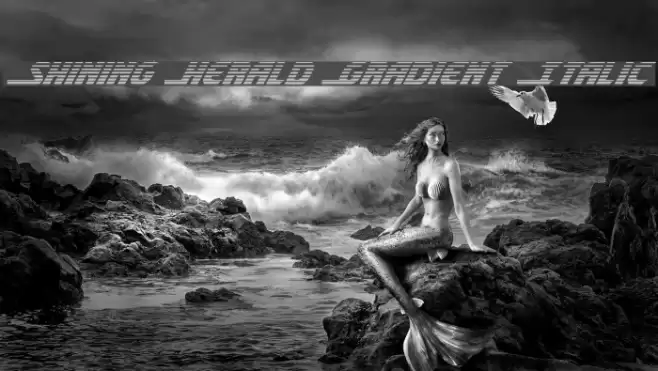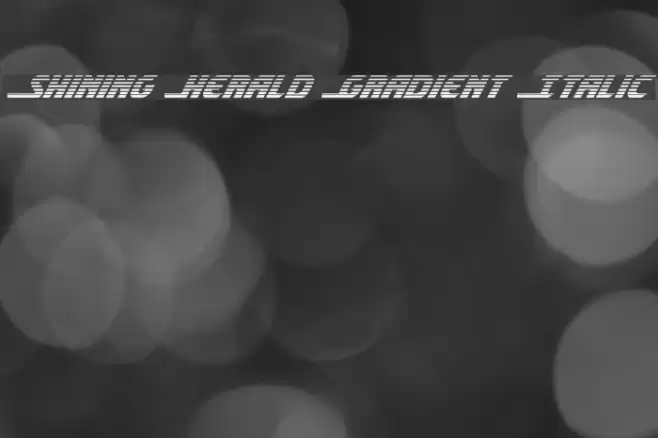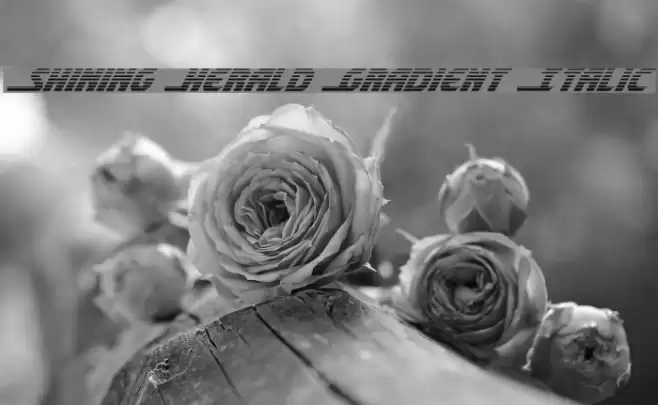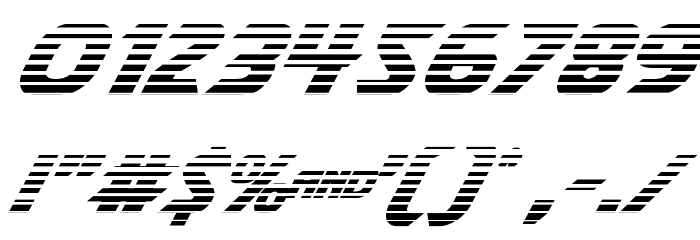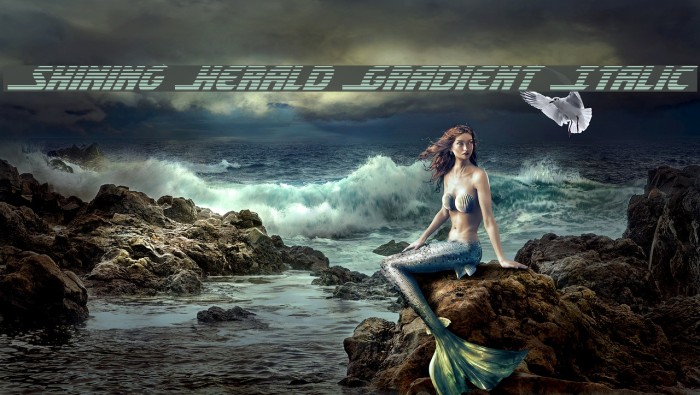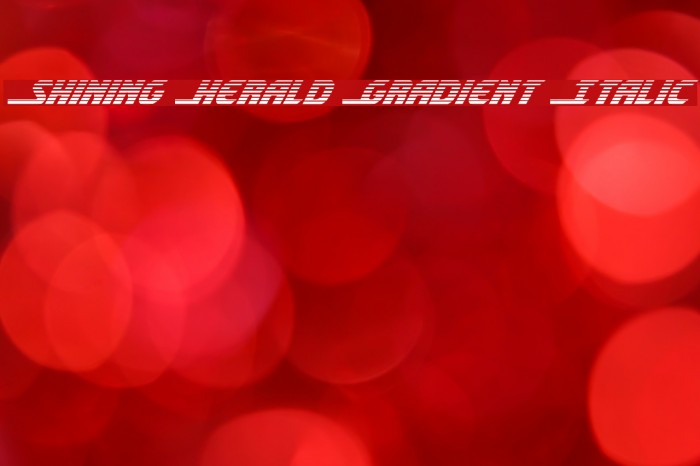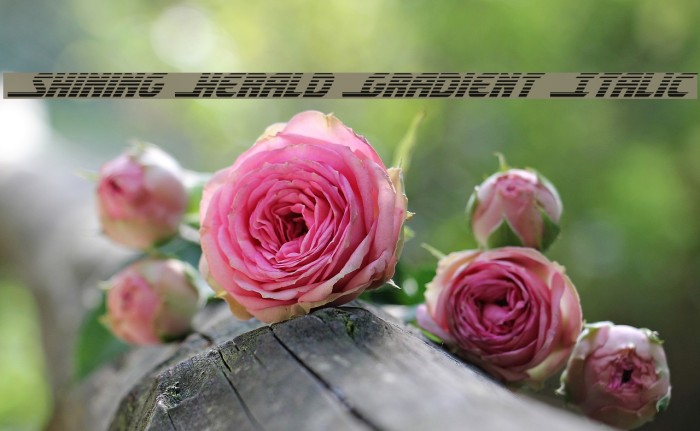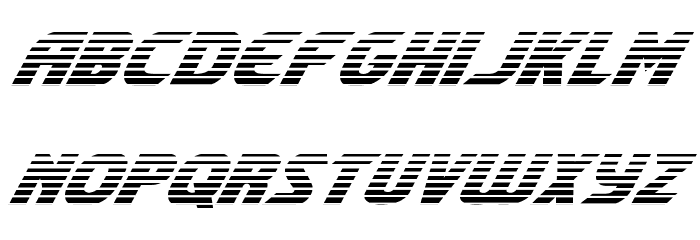
Shining Herald Gradient Italic Font
Shining Herald Gradient Italic Description
This font features a dynamic, italicized style with a distinct gradient effect that gives each character a sense of motion and energy. The letters are composed of horizontal lines that create a striped appearance, enhancing the futuristic and modern aesthetic. The uppercase and lowercase letters maintain a consistent slant, contributing to the overall sleek and streamlined look. The numbers and special characters follow the same design principles, ensuring uniformity across all elements. This font's unique design makes it stand out, ideal for projects that require a bold and eye-catching typeface.
A dynamic, italicized font with a gradient effect and striped appearance, exuding a modern and energetic style from Uncategorized fonts.
- Proposed Projects: Ideal for futuristic branding, tech-related designs, sports team logos, and dynamic advertising materials.